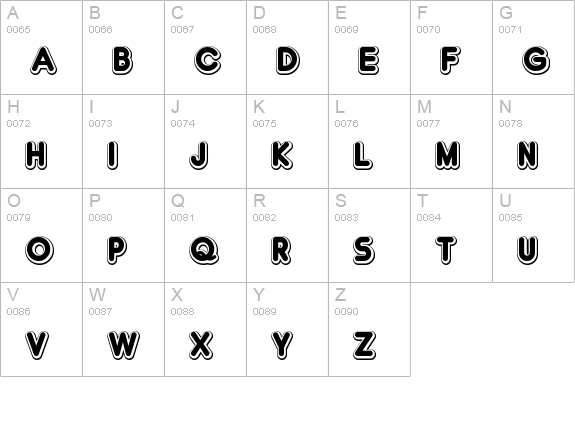
Double¥Bubble Shadow is a whimsical and playful font that is sure to bring a touch of charm and fun to any design. This font is characterized by its unique bubble-like shapes and shadow effects, which add depth and dimension to each letter. The rounded edges and smooth curves give Double¥Bubble Shadow a soft and friendly appearance, making it perfect for projects that require a warm and inviting feel. What makes Double¥Bubble Shadow even more appealing is that it is available for free download at FontsMarket.com. Whether you're a professional designer or a DIY enthusiast, you can easily access this font and incorporate it into your work without any cost. This means that you can bring a touch of creativity and excitement to your designs without having to worry about breaking the bank. With Double¥Bubble Shadow, the possibilities are endless. This versatile font can be used in a variety of projects, including logos, branding materials, invitations, posters, and more. Its playful nature makes it particularly suitable for children's projects, such as book covers, birthday invitations, and educational materials. When it comes to customization, Double¥Bubble Shadow offers a range of options. You can adjust the size, color, and spacing of each letter to perfectly fit your design needs. With its bold and eye-catching appearance, this font is sure to grab attention and make a lasting impression. So why wait? Download Double¥Bubble Shadow for free at FontsMarket.com and let your creativity soar. With its charming design and limitless possibilities, this font is sure to become a favorite in your font collection. Get ready to add a touch of whimsy and joy to your designs with Double¥Bubble Shadow.